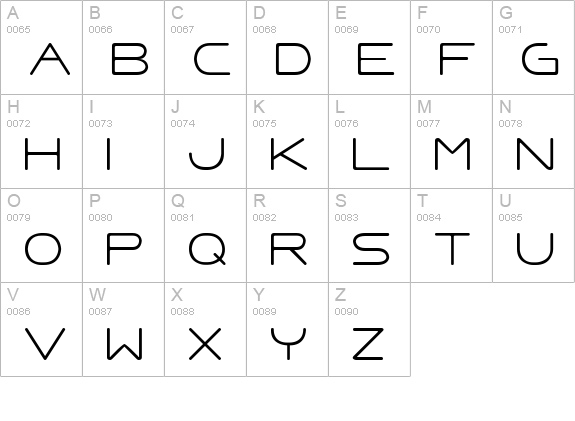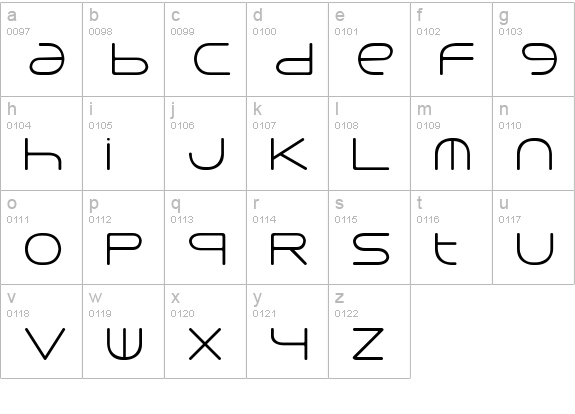
Punavuori 00150 Font Details
Introducing Punavuori 00150 font, a stunning display typeface that exudes sophistication and elegance. With its clean lines and modern aesthetic, this font is perfect for a wide range of design projects, from branding to editorial design. The unique letterforms of Punavuori 00150 font will surely make your creations stand out and leave a lasting impression. And the best part? Punavuori 00150 font is available for free download at FontsMarket.com, making it accessible to all designers looking to add a touch of class to their projects without breaking the bank. Don't miss out on this opportunity to elevate your designs with the timeless beauty of Punavuori 00150 font. Download it now and let your creativity soar!